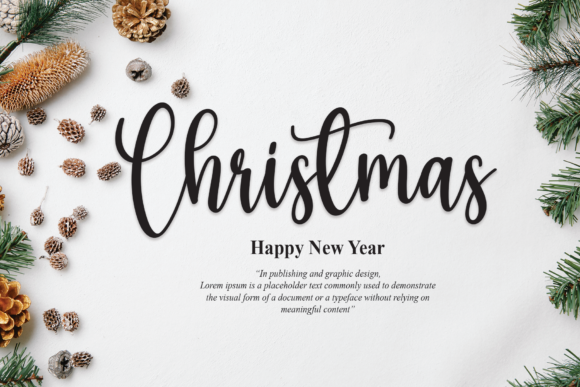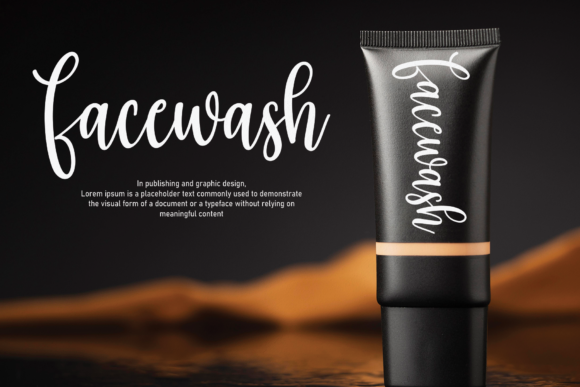
Gnome Font
db-ku.com - Script & Handwritten -- Gnome is a beautifully flowing and modern handwritten font. Use it for wall displays, wedding invitations, social media post logos,